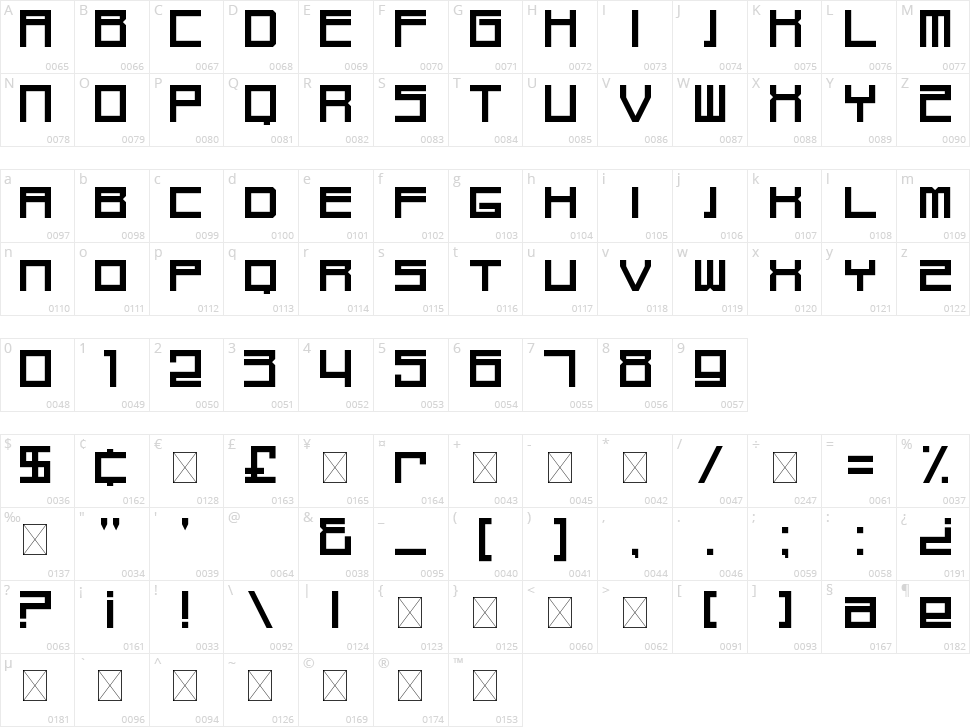
This font is a digital revival of an obscure VGC film typeface called Stan Conform, originally designed by Stan Davis (of Amelia fame).
| Designer Name: | Bryson Stohr |
Designer Name: Bryson Stohr